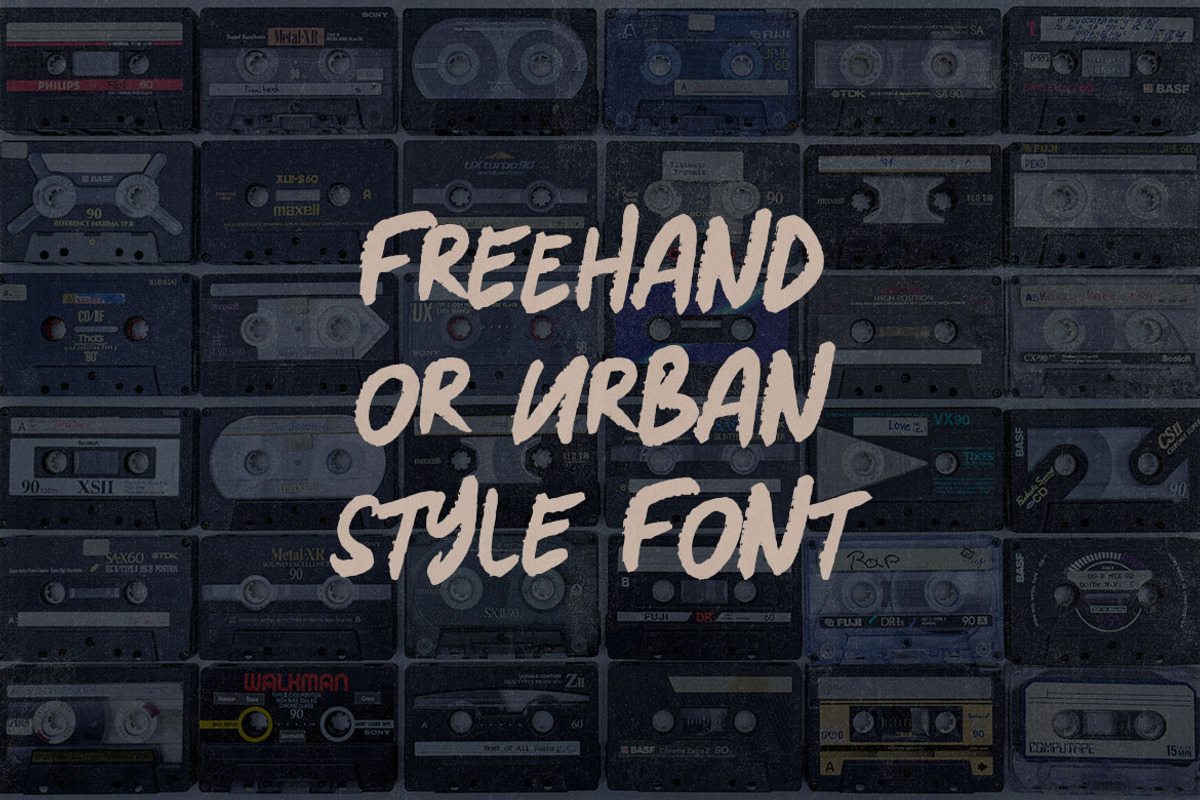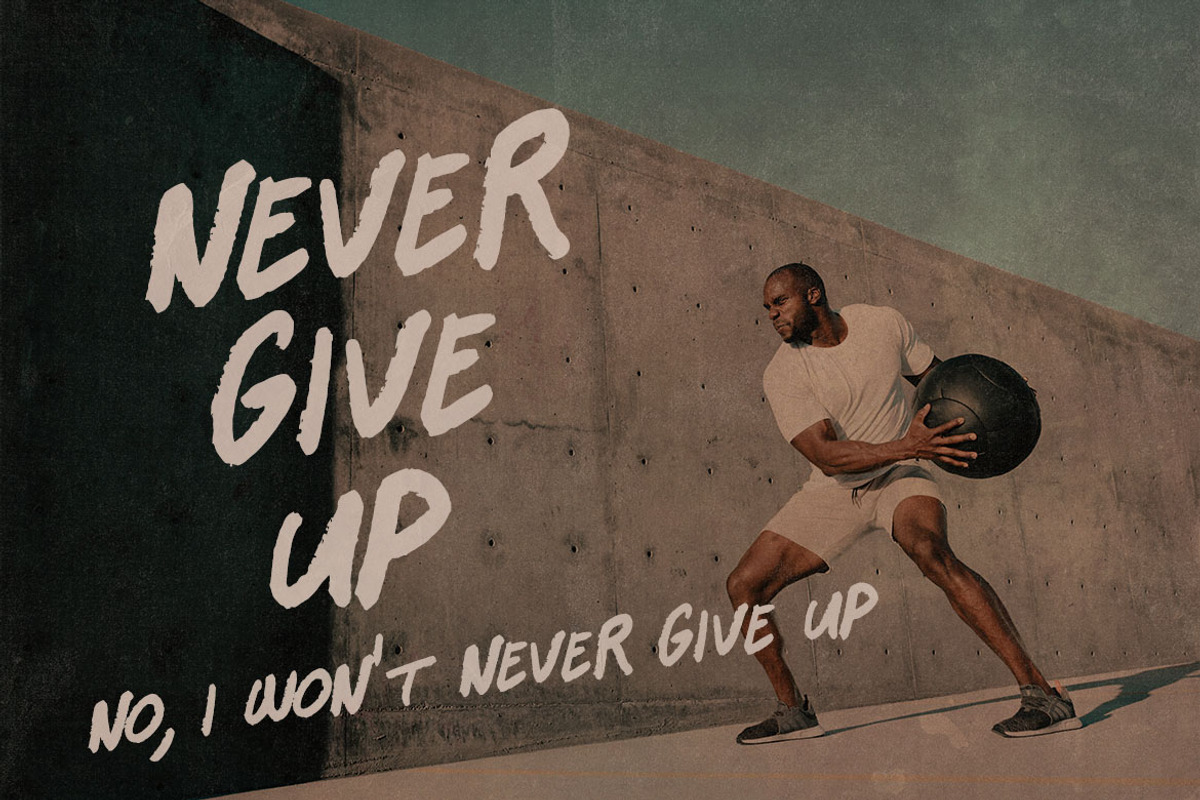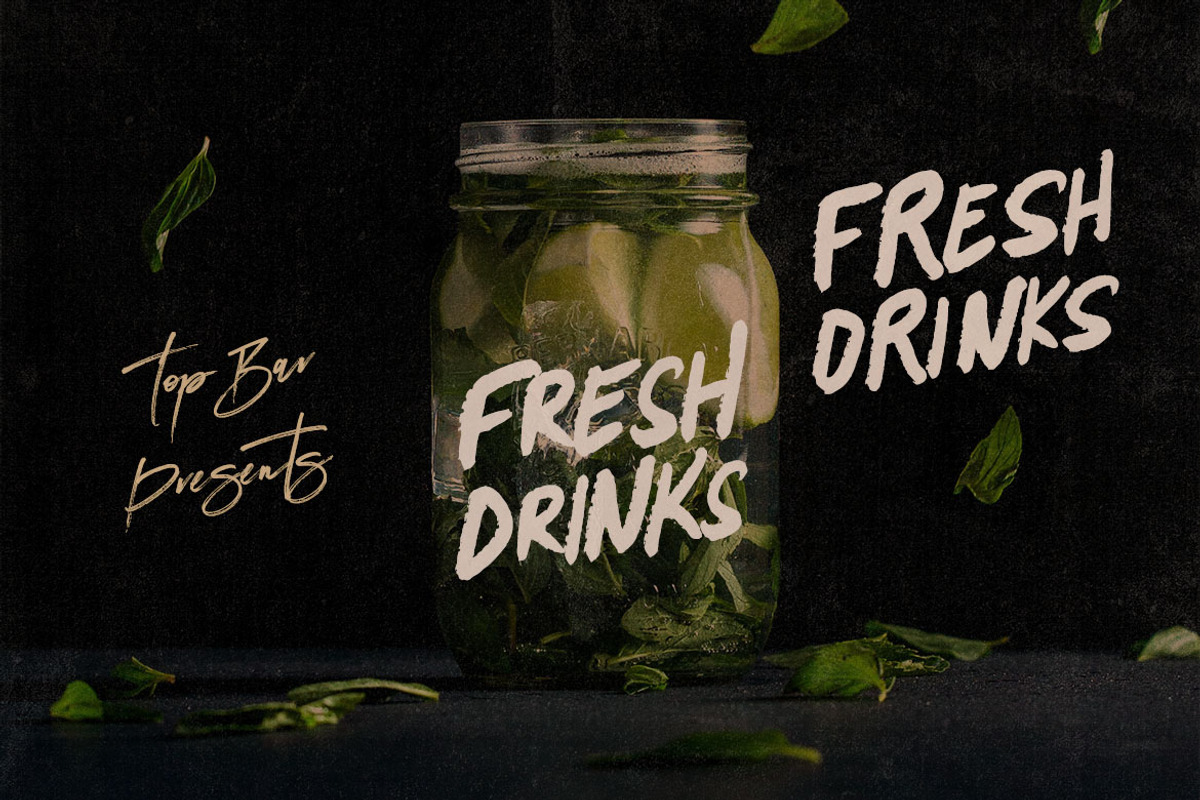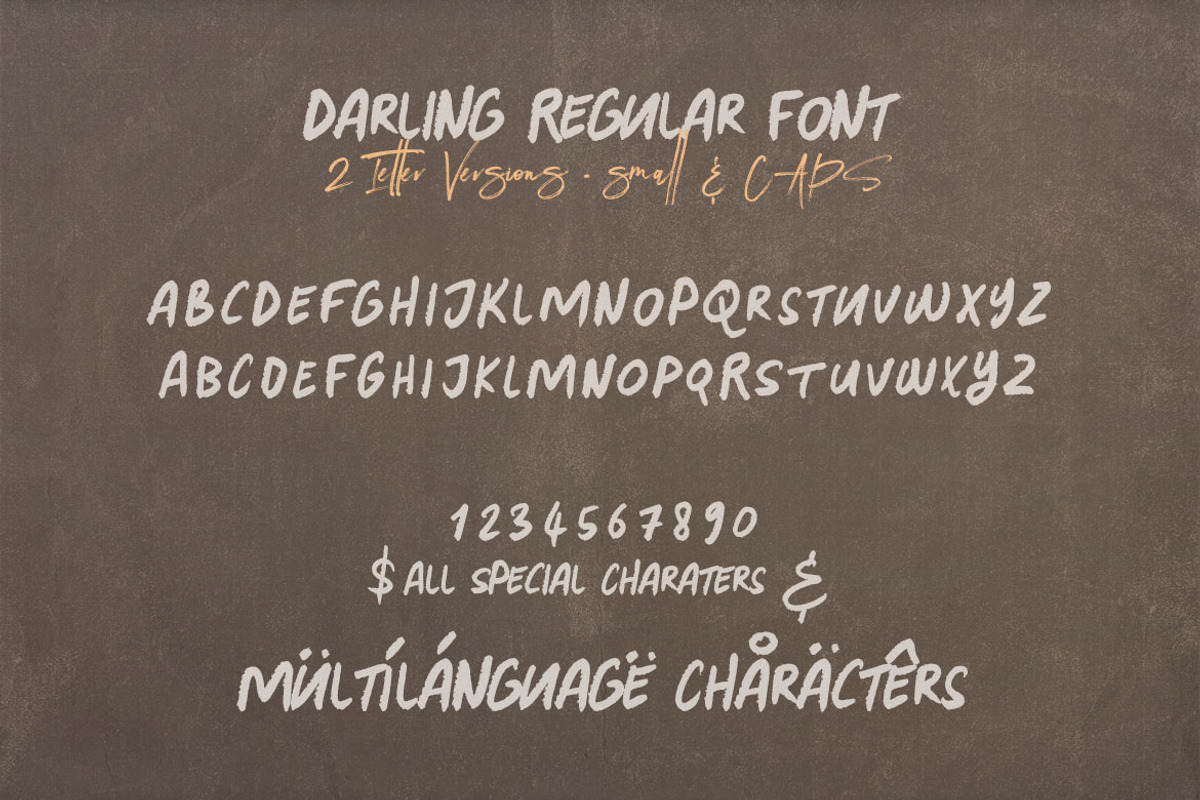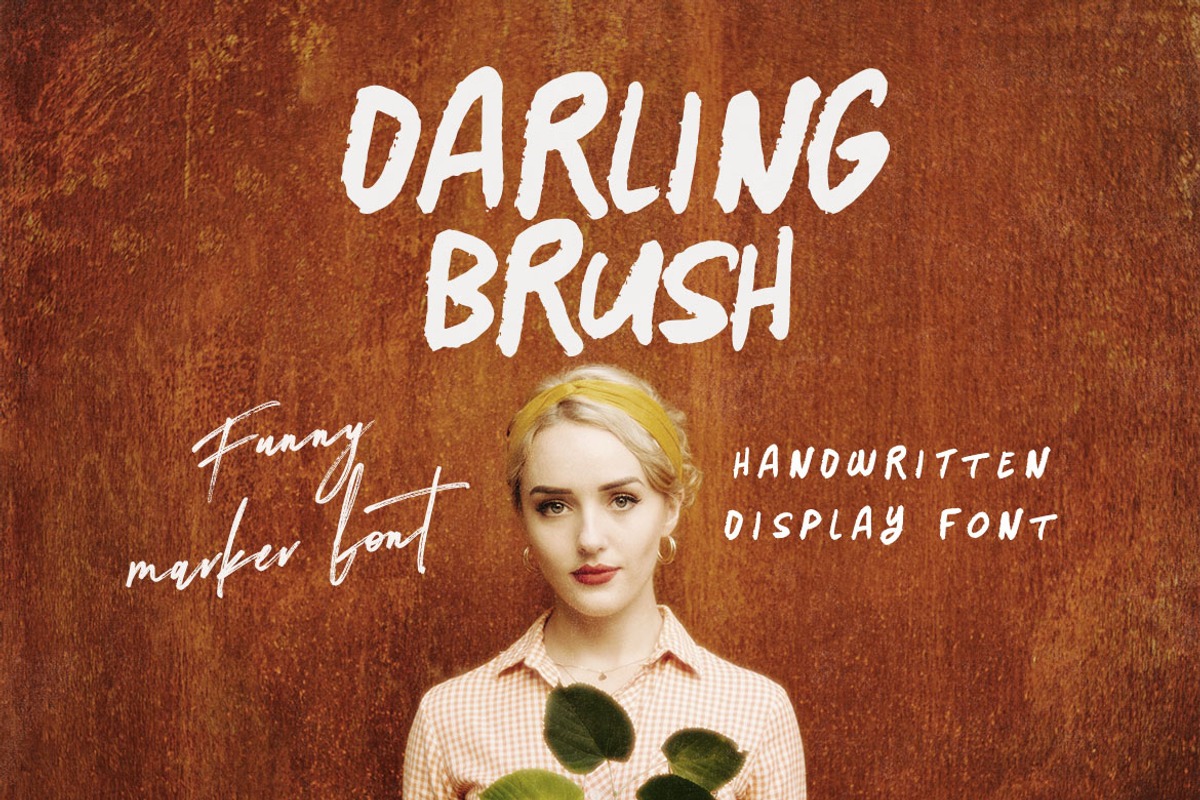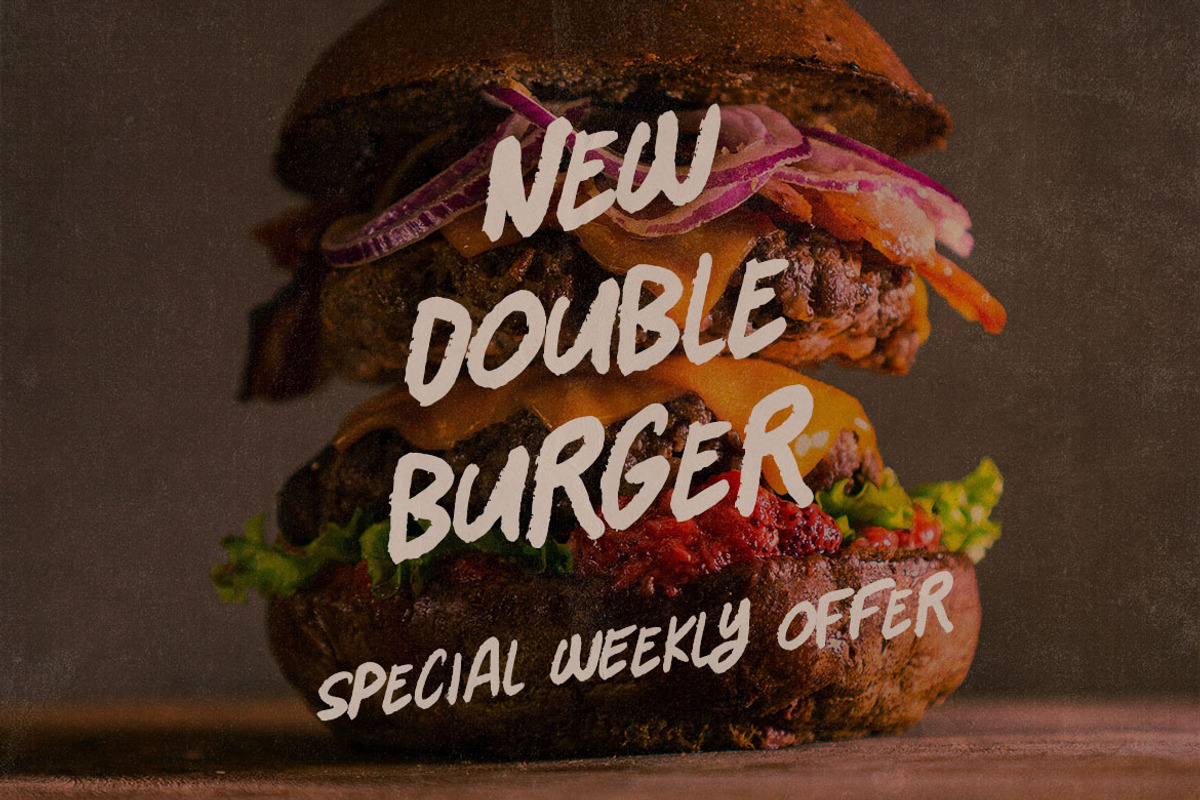
Darling - Handwritten Font
Marker, handwritten, brush & grunge style sans display font for your new projects. Great for grunge or artistic projects!
- multilanguage support